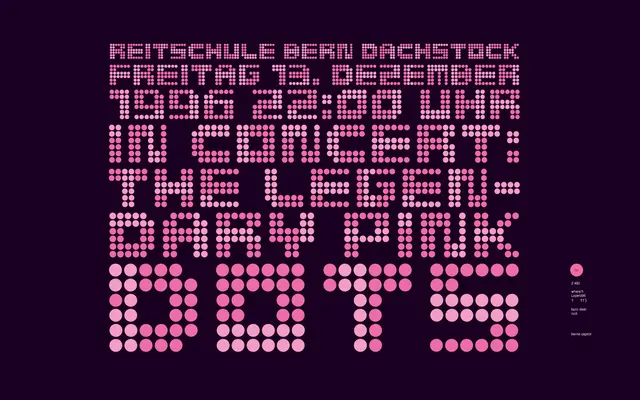
BD MedLed
Type Different · 1995
A monospaced LED dot-matrix font built on a 6x6 dot grid, originally created in 1995 for rave flyers and re-released with light refinements.
Built on a fixed 6x6 dot grid, this font mimics the appearance of LED display panels common in electronic signage and early digital interfaces. First drawn in 1995 and used across rave flyers of that era, the updated release adds minor refinements while retaining the original grid-based character. Available in Regular and Italic, with coverage limited to Basic Latin and a small selection of supplementary glyphs.
A monospaced LED dot-matrix display font built on a fixed 6x6 dot grid, placing it firmly in the mono category with a display character owing to its origin in electronic signage simulation.